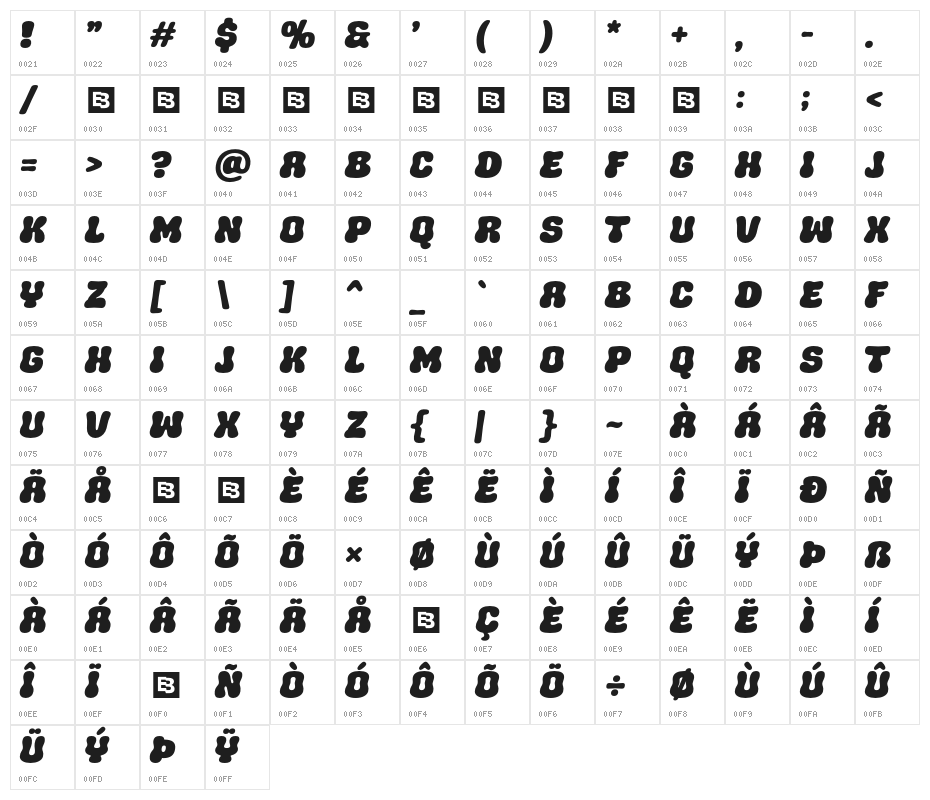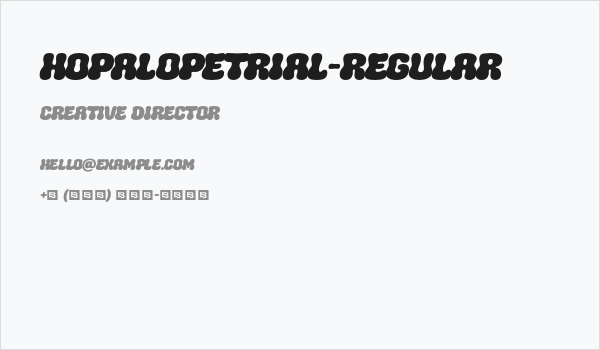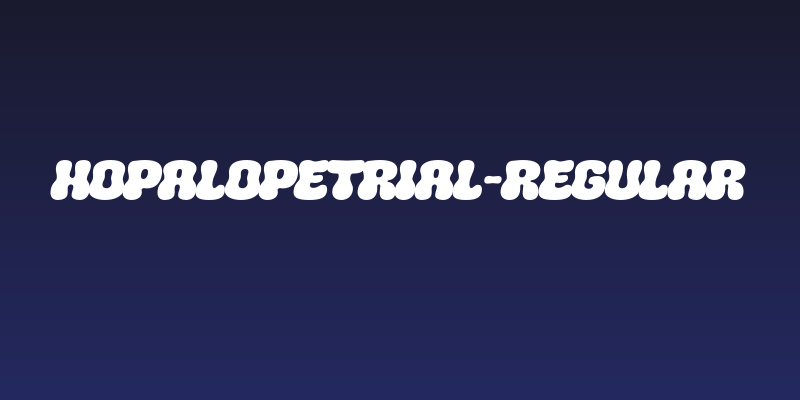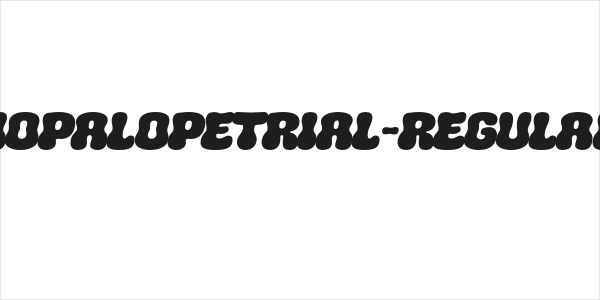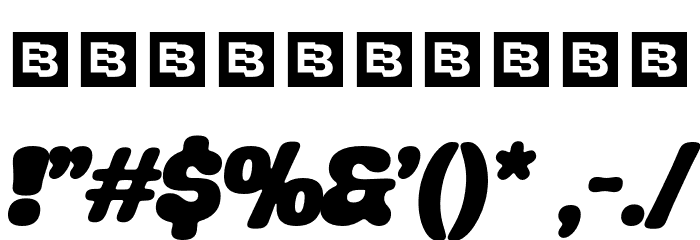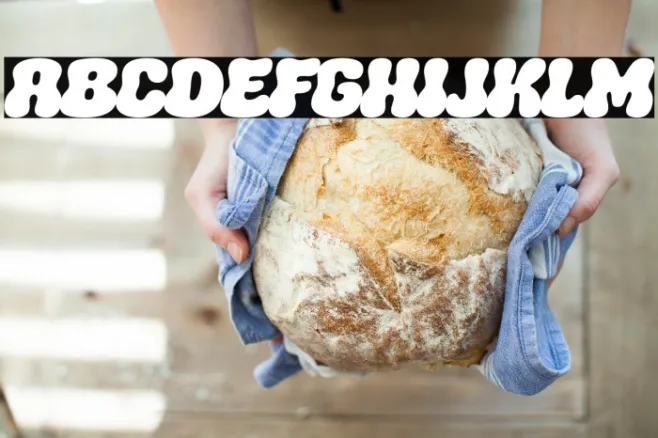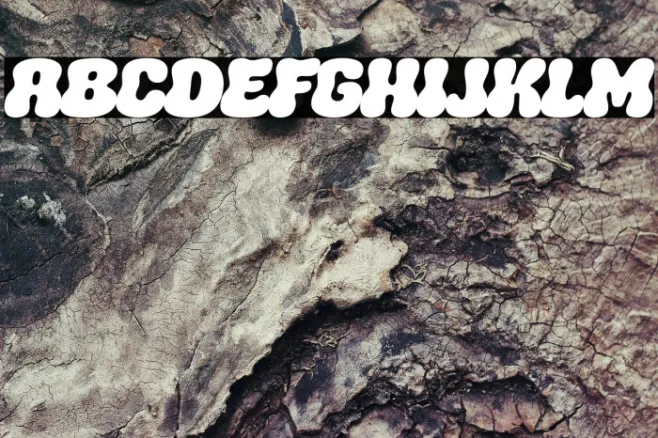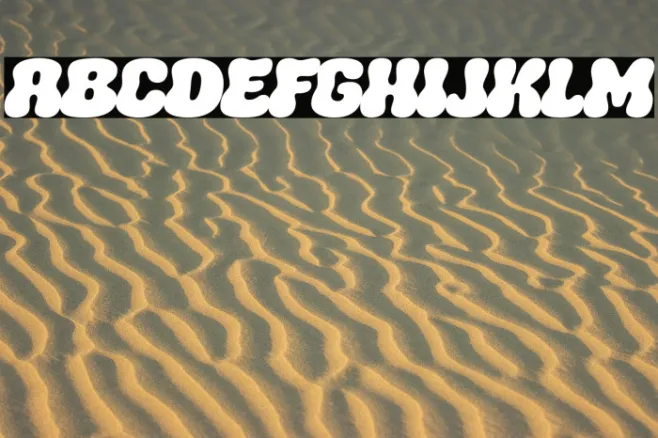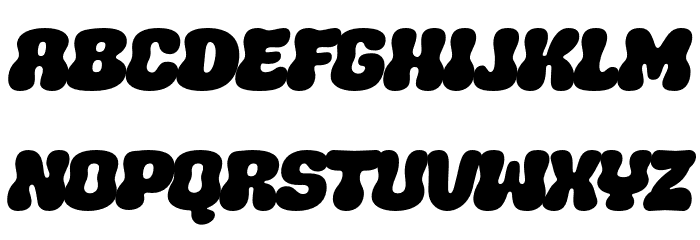
HOPALOPETRIAL-Regular Font
HOPALOPETRIAL-Regular Description
This font features a bold and playful design with thick, rounded strokes that give it a bubbly and energetic appearance. The characters are heavily weighted, creating a strong visual impact. The uppercase and lowercase letters maintain a consistent style, with rounded edges and a uniform thickness throughout. The numbers and special characters follow the same design principles, ensuring a cohesive look across all elements. This font's unique style makes it stand out, offering a fun and lively aesthetic that is both modern and eye-catching.
| Font Family | HOPALOPE TRIAL |
| Overall Style | Playful, Modern |